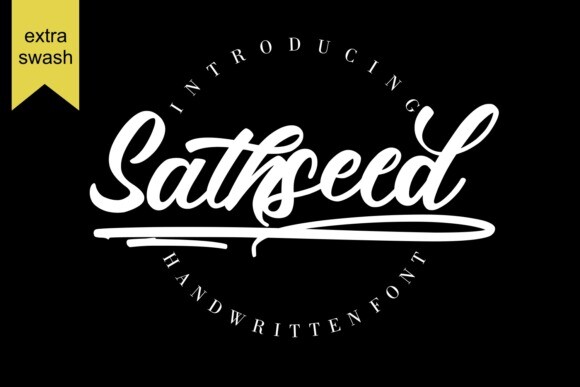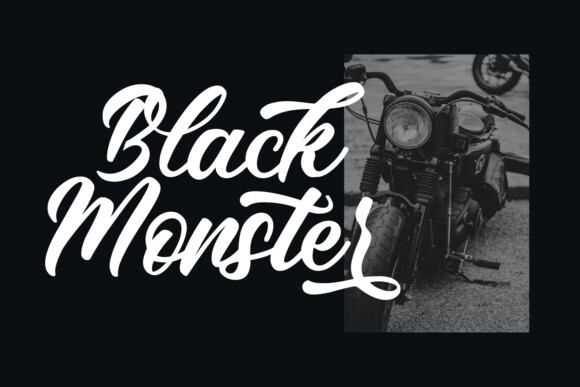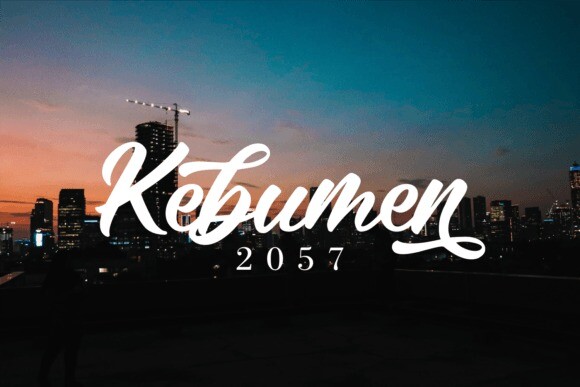
Sathhseed Font
Sathseed Font is a fun, lively, handwritten brush script created with the utmost care and attention to detail. It’s ideal for logos, titles, product packaging, merchandise, quotes.